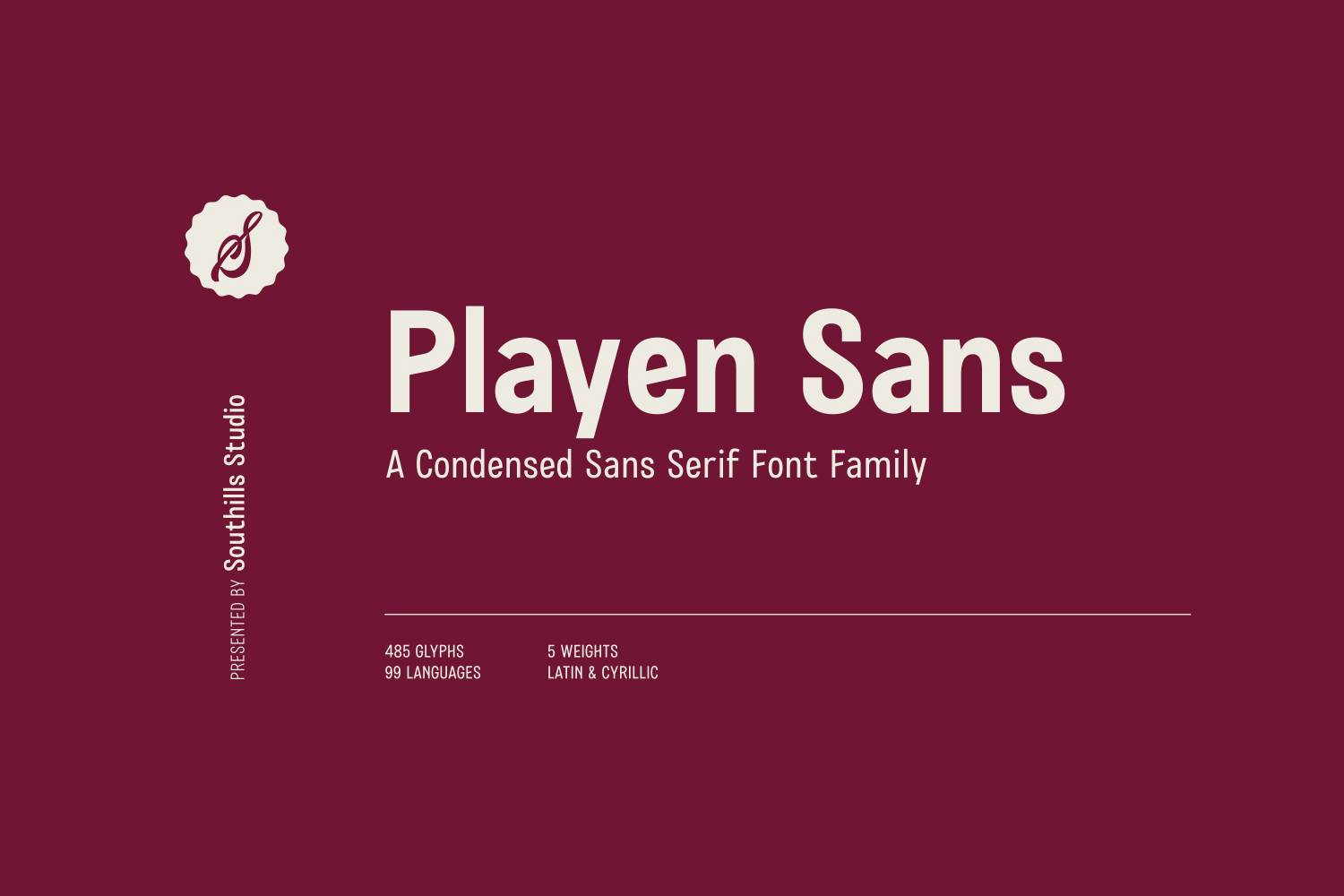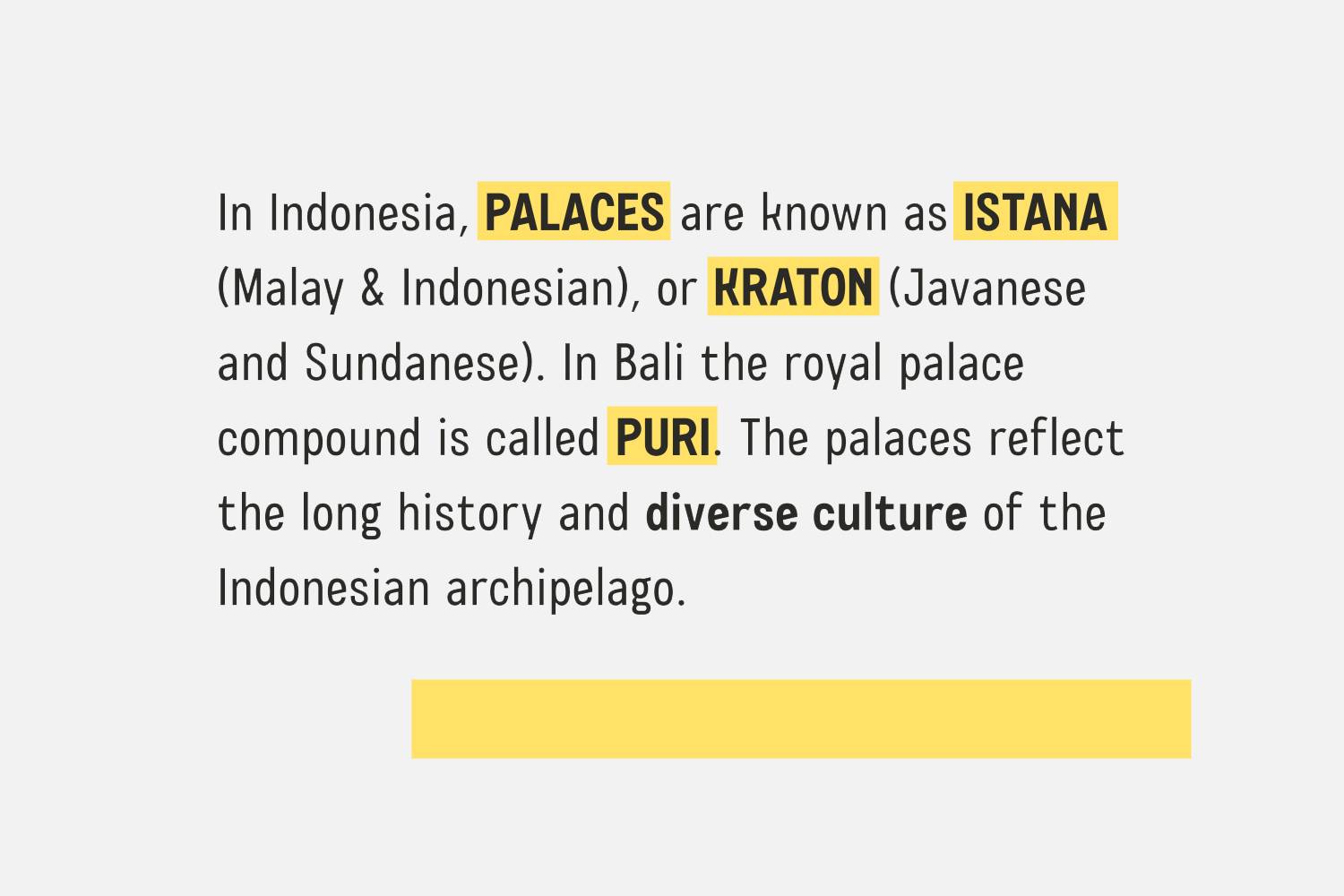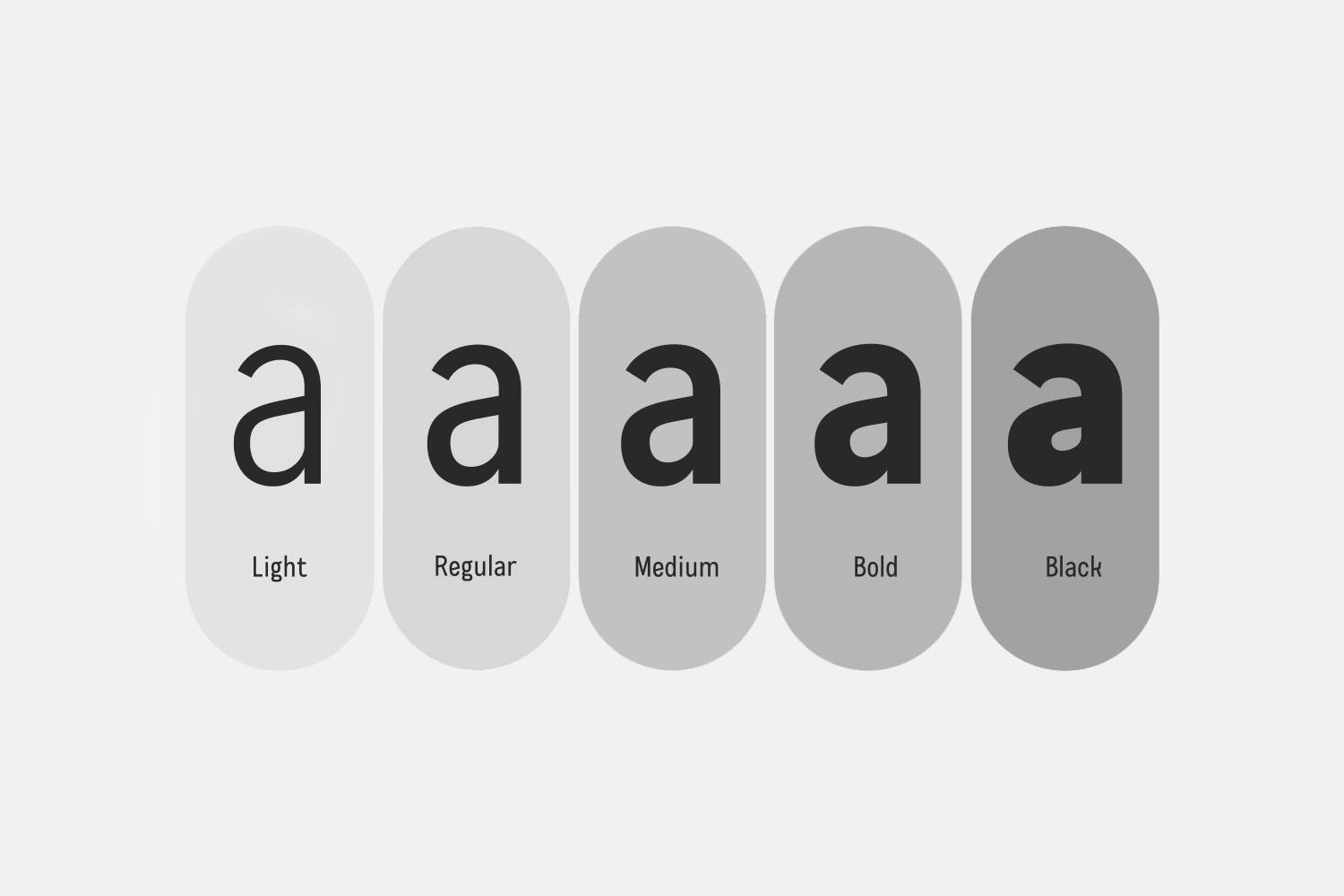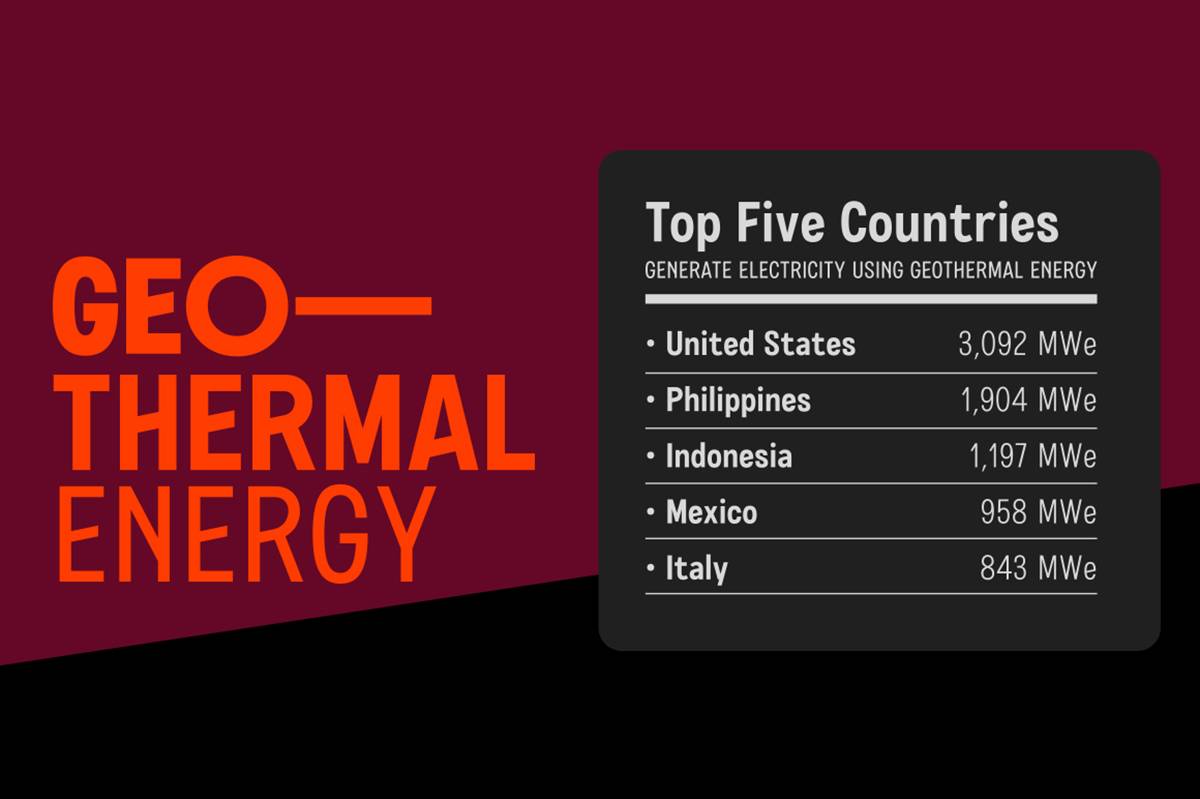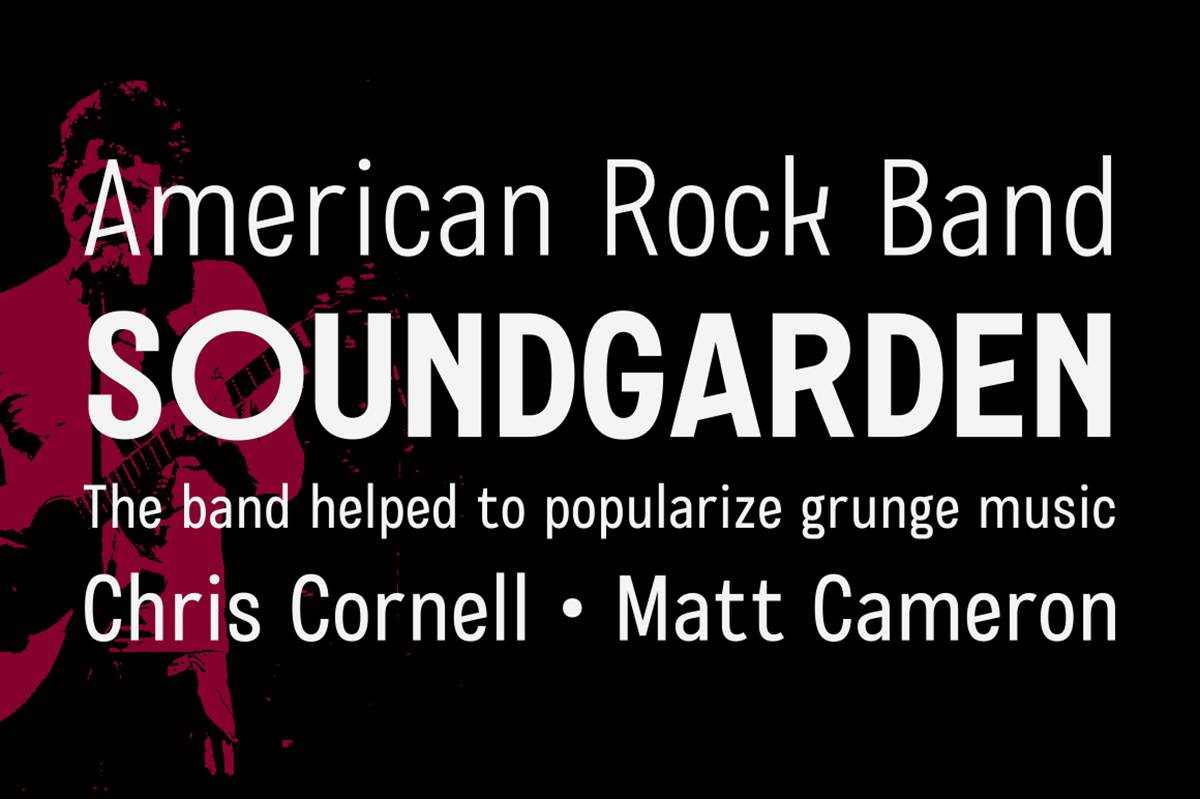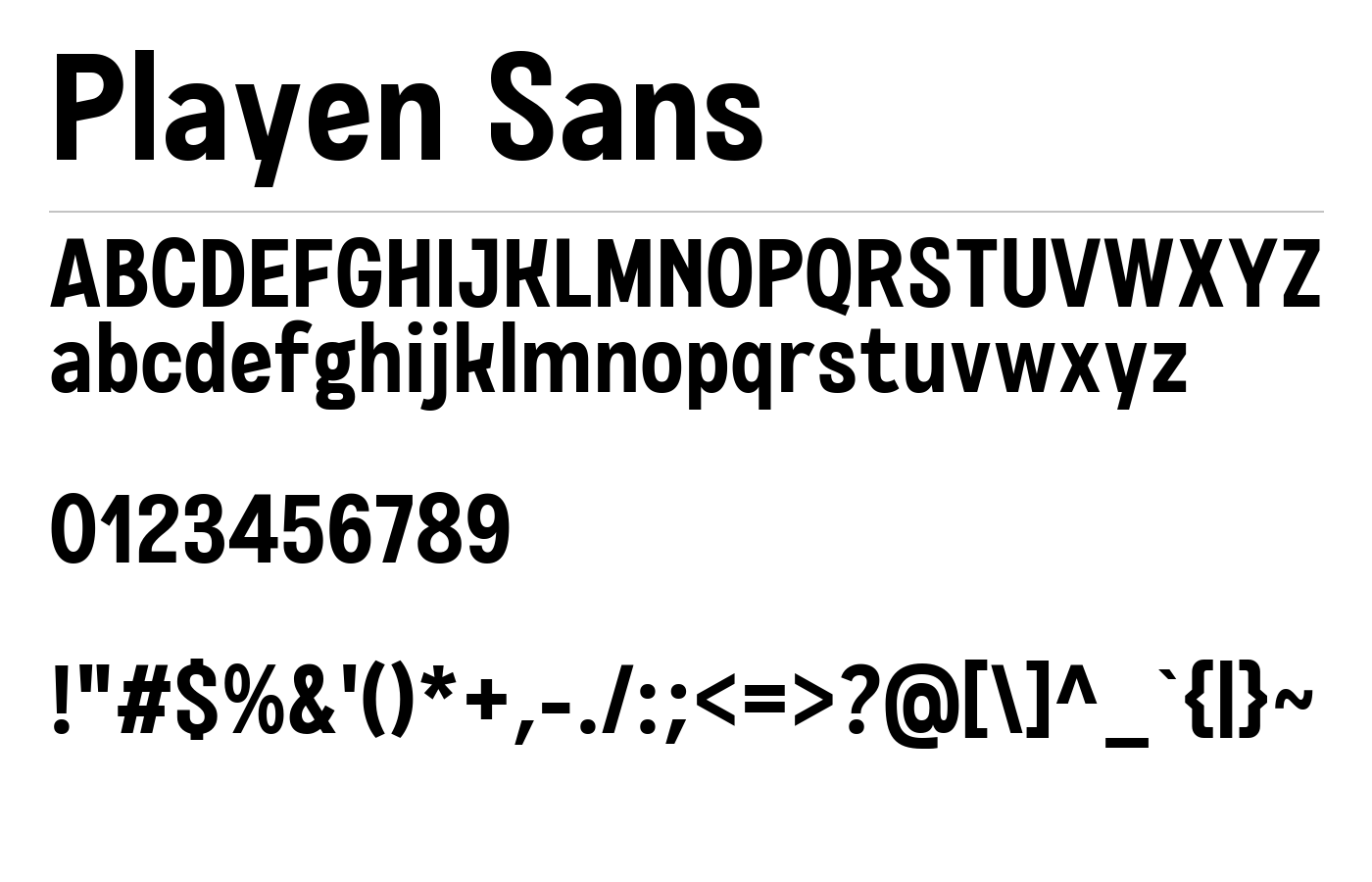
Playen Sans is a bold, condensed sans serif font with a strong and slightly playful personality. Its high x-height and uniform stroke weight make it highly readable, while subtle quirks in letter shapes add a distinct, friendly character, perfect for eye-catching headlines and branding that aims to be both modern and approachable. This font works especially well in editorial layouts, posters, and digital interfaces where clarity and style must go hand in hand.
Playen Sans Font
About Playen Sans Font
| Font family | Playen Sans Font |
| Languages supported | Latin, Greek, Cyrillic, Symbols |
| Release date | 2022-02-02 |
| Designer | Arwan Sutanto |